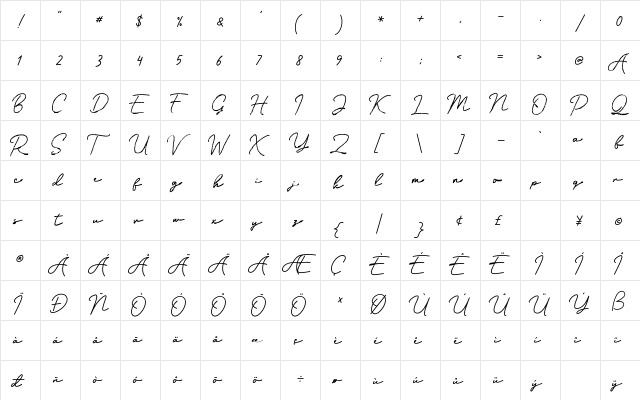
Silverstone Textured Regular
Design Context for Silverstone Textured Typeface
Silverstone Textured trades polish for personality, using distressed and eroded forms to bring grit and attitude to creative work.
Suited to punk-influenced zines, underground music branding, streetwear, and raw, anti-corporate design.